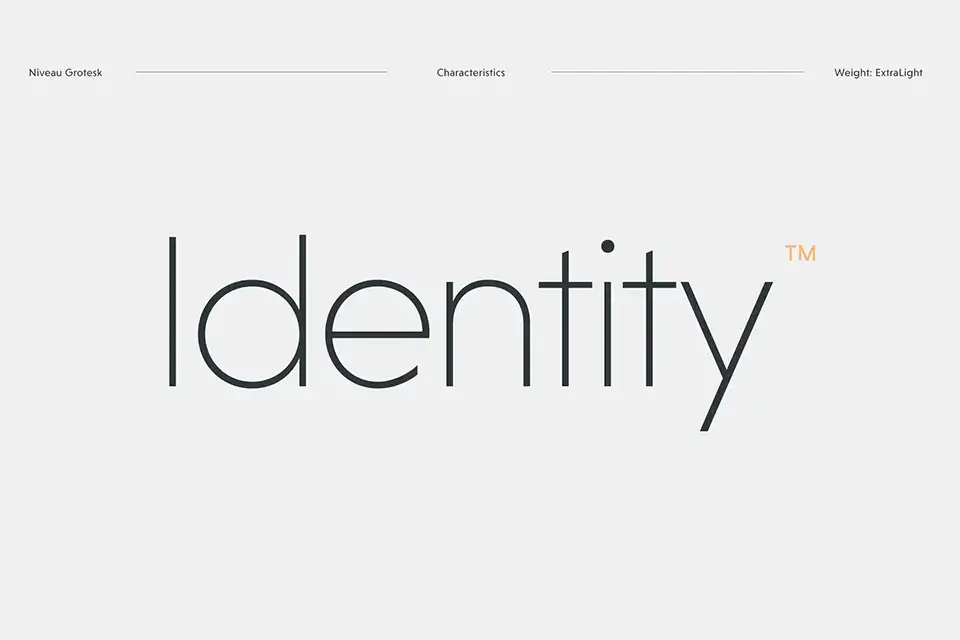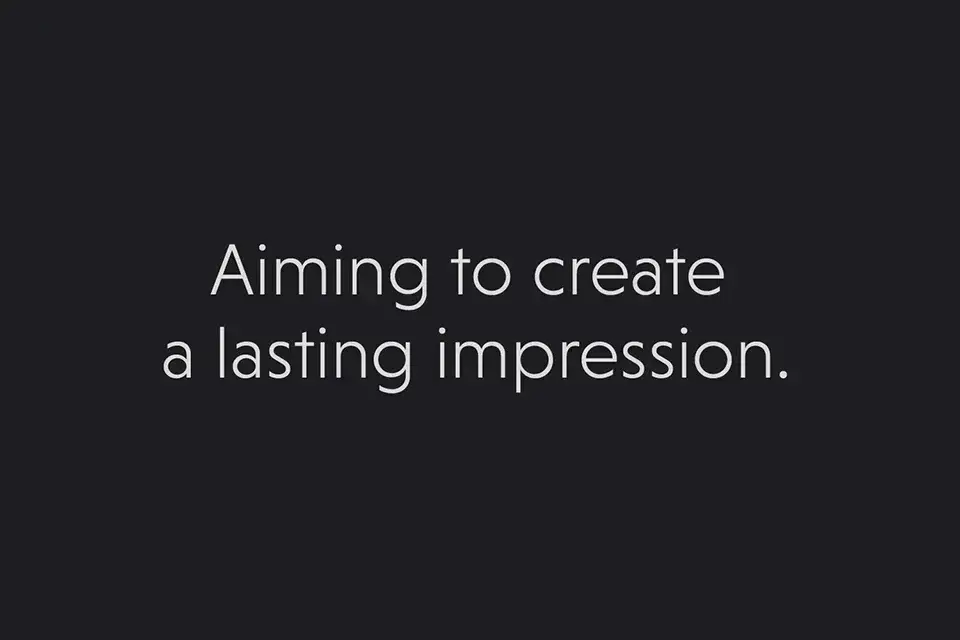
Niveau Grotesk Font Family
Niveau Grotesk is a modern sans-serif font family designed by Hannes von Döhren in 2013. This minimalist typeface comprises 18 styles, merging geometric forms with a classic aesthetic influenced by 19th-century typefaces. Its clean lines and structured architecture make it highly legible for both large displays and longer texts, whether in print or digital formats. The font is equipped with advanced typographic features, including alternate letters, arrows, and fractions, supporting a wide range of languages across Europe.
Features
- 18 Font Styles: Offers versatility for various design needs.
- Geometric Design: Combines modern aesthetics with classical influences.
- Legibility: Clear and readable in both large and small sizes.
- Extended Character Set: Supports Central, Eastern, and Western European languages.
- Advanced Typographic Features: Includes alternate letters, fractions, and arrows.
How many styles does the Niveau Grotesk font family include?
The font family includes 18 different styles.
Who designed the Niveau Grotesk font?
It was designed by Hannes von Döhren.
What type of projects can I use Niveau Grotesk for?
You can use it for graphic design projects, branding, web publishing, and more.